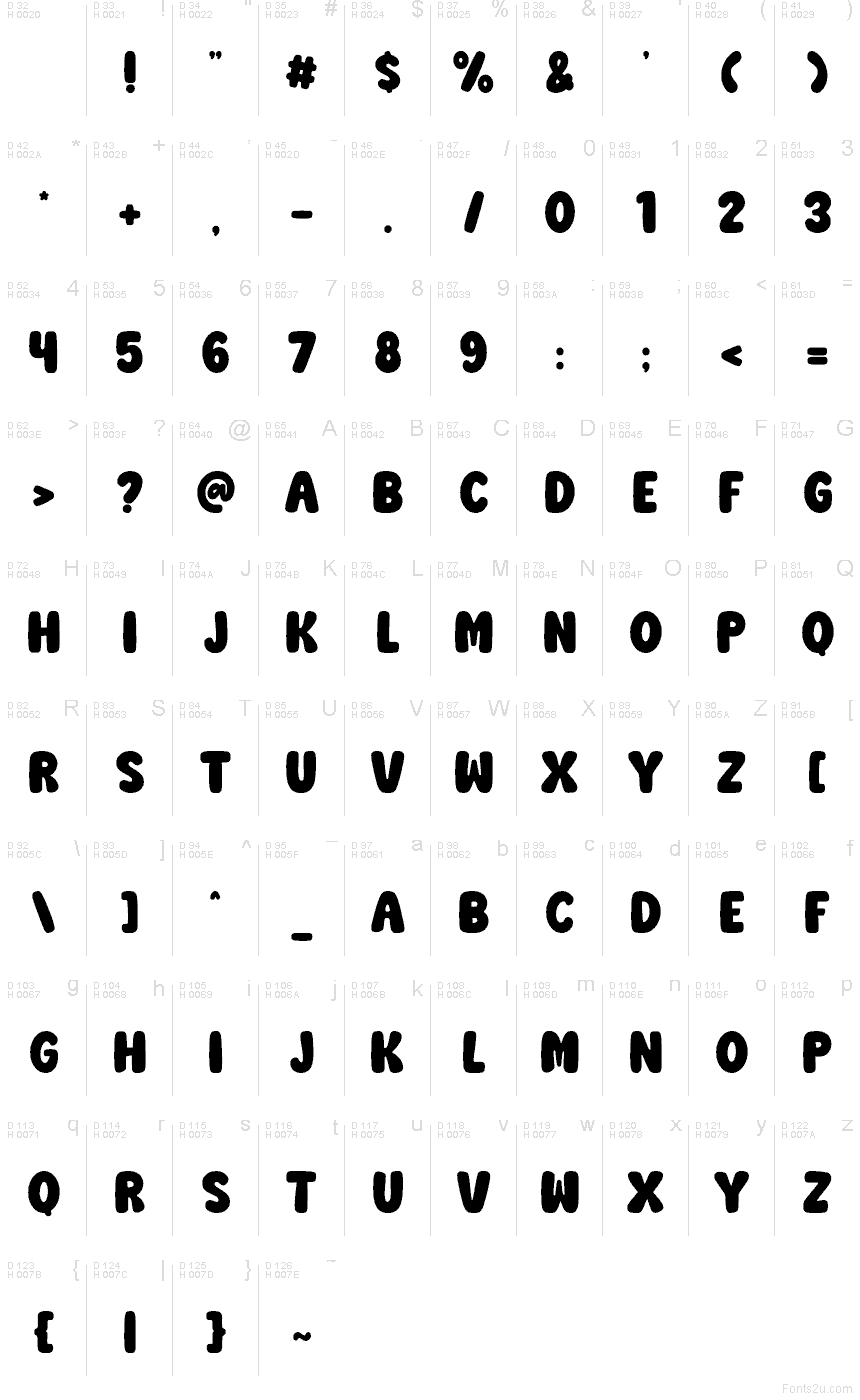
Chunky Playful, by SiapGraph, is a free cartoon display font with big rounded letters that feel soft, bouncy, and slightly squeezed by hand. The strokes stay heavy throughout, but the uneven curves and narrow gaps keep it from feeling rigid, giving the font a cheerful, almost toy-like rhythm.
It fits naturally in kids' book covers, snack packaging, party invitations, app splash screens, and short YouTube title cards where a friendly voice matters more than formality. As a free font, it also suits simple logos, bold stickers, and quick social posts, especially when you want chunky lettering that feels warm rather than mechanical.